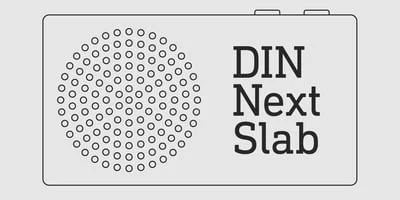
DIN Next Slab Font is perfect for modern industrial branding, technical documentation layouts, engineering firm presentations, automotive industry materials, manufacturing company signage, construction project displays, architectural specification documents, transportation system graphics, machinery equipment labels, German engineering campaigns, and any project that requires precise industrial character with contemporary German design standards.
What makes DIN Next Slab Font exciting is its exceptional evolution of classic German industrial typography standards into contemporary slab serif excellence through precisely engineered letterforms that honor DIN heritage while embracing modern design functionality. This sophisticated typeface features robust slab characteristics with German precision that convey engineering reliability while maintaining excellent readability across all industrial applications. The font's industrial character adds instant technical credibility and German engineering appeal to any design, making it perfect for organizations requiring standardized excellence and industrial sophistication.
DIN Next Slab Font comes in multiple font families including Regular, Bold, Light, Condensed, Heavy, and Industrial variations, offering designers comprehensive options to create technical compositions and achieve the perfect German engineering aesthetic for industry-focused design projects.
Whether you're developing industrial brand identity, creating technical documentation materials, or designing engineering campaign graphics, DIN Next Slab Font provides the ideal solution for projects demanding authentic industrial character and German engineering sophistication. This precise typeface excels in both print and digital applications where technical presence is essential, ensuring your designs communicate engineering excellence and industrial standards. The structured character and German styling of DIN Next Slab Font make it an indispensable tool for designers who prioritize industrial design, German engineering, and technical precision standards in their typographic selections.